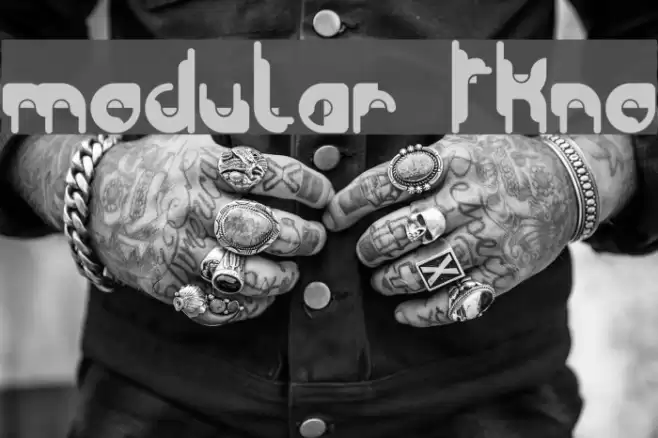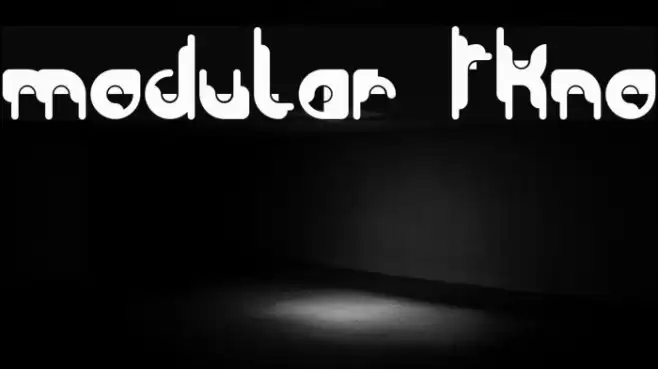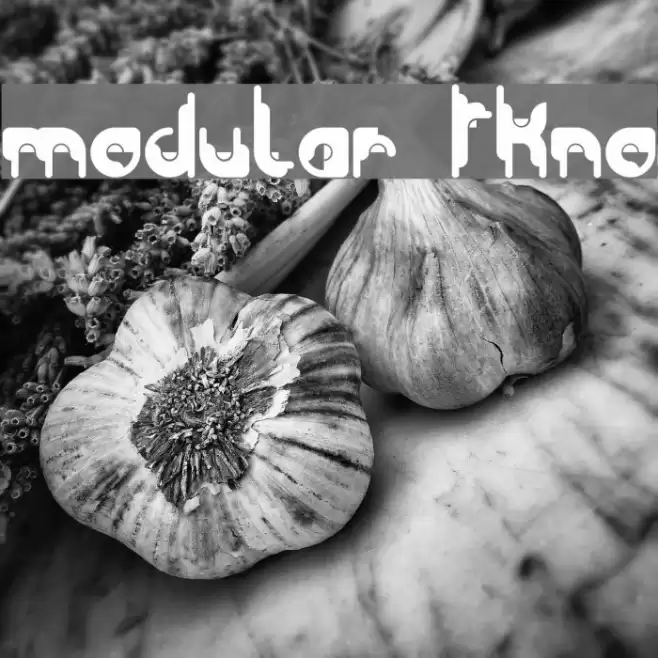
Modular Tkno Font
Modular Tkno Description
This font showcases a futuristic and modular design, characterized by its geometric shapes and bold presence. The letters are constructed with a combination of circular and angular elements, creating a unique and eye-catching appearance. The font has a distinct techno vibe, making it suitable for modern and digital-themed projects. Its boldness is evident in the thick strokes, while the spacing between characters is relatively tight, enhancing its compact look. The contrast in stroke thickness is medium, providing a balanced visual weight across the characters. Overall, this font exudes a modern and innovative style, perfect for projects that aim to convey a sense of technology and advancement.
A futuristic, modular font with geometric shapes and a techno vibe from Uncategorized fonts.
- Proposed Projects: Ideal for digital media, tech branding, sci-fi posters, and innovative product packaging.
- Character Spacing: Tight